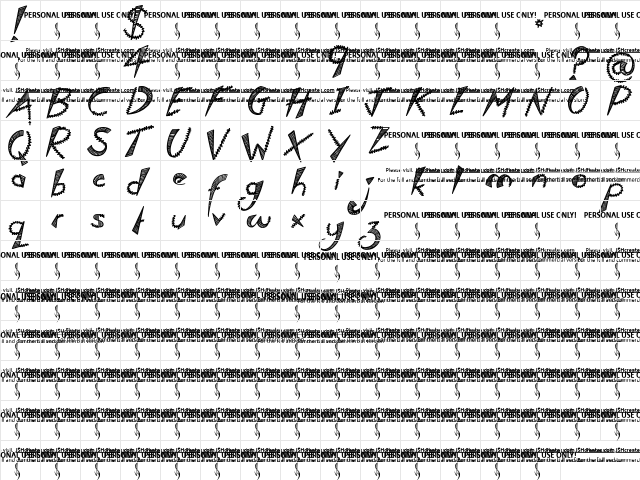
Which Witchy? PERSONAL USE ONLY Regular
| Foundry | JSH creates |
| Designer | Jonathan S. Harris |
Design Context for Which Witchy? PERSONAL USE ONLY Typeface
Which Witchy? PERSONAL USE ONLY is a composed and adaptable typeface that performs quietly and consistently across a wide range of design contexts.